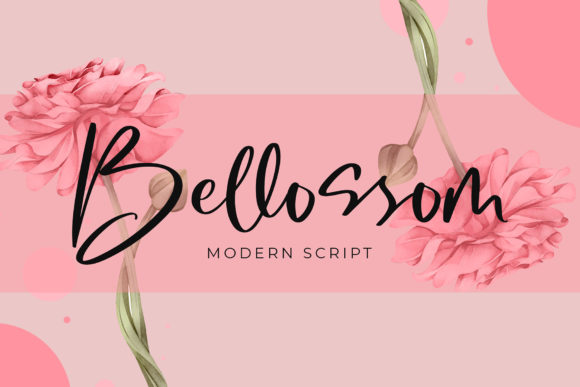
The Quest for the Perfect Handwritten Font: Discovering Bellossom
I still remember the design project that led me to Bellossom Font. I was working on a wedding invitation suite, and my client specifically asked for a ‘handwritten touch’ to make the design feel more personal and intimate. I scoured font libraries, but nothing seemed quite right – until I stumbled upon Bellossom. Its flowing, relaxed vibe instantly clicked with me, and I knew I’d found the perfect fit. In this article, I’ll share my experience with Bellossom, its features, and how to make the most of this beautiful font.
An Honest Review of Bellossom Font
What I Love About Bellossom ✨
- ✅ Relaxed and timeless handwritten feel
- ✅ Flowing and versatile, perfect for various design projects
- ✅ Easy to read, even in smaller sizes
- ✅ Beautifully crafted to add a personal touch to any design
- ⚠️ Limited availability of stylistic alternates, which might restrict creative experimentation
- ⚠️ Not ideal for very large or display text, as it may lose some of its elegance
The Story Behind Bellossom Font
Bellossom was crafted with the intention of creating a timeless, handwritten font. The designer aimed to create a typeface that exudes warmth and approachability, perfect for designs requiring a personal touch. Through careful attention to detail and a passion for typography, Bellossom was born – a font that’s both elegant and relaxed.
Q: What makes Bellossom suitable for invitations and cards?
A: Bellossom’s handwritten feel and flowing design make it perfect for creating invitations, cards, and other designs that require a personal touch.